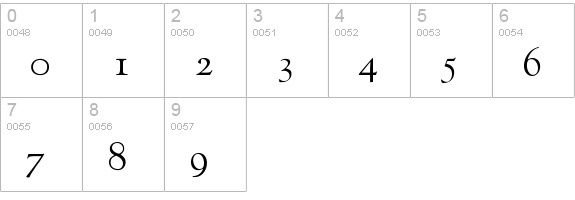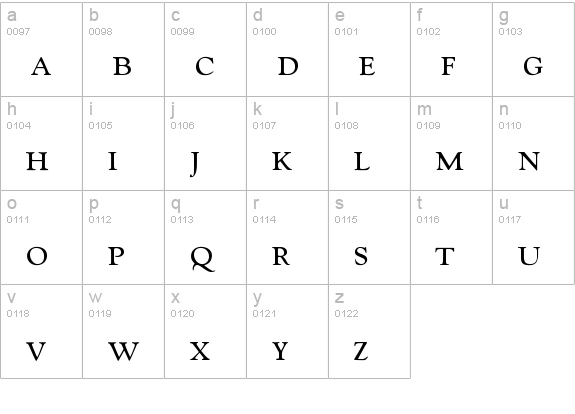
Goudy Oldstyle H-SC is a classic and elegant serif font that exudes a sense of timeless sophistication. Its high-contrast strokes and delicate serifs make it perfect for adding a touch of refinement to any project, whether it be for print or digital use. This font's old-world charm and graceful letterforms make it a popular choice for luxury branding, editorial design, and wedding invitations. What makes Goudy Oldstyle H-SC even more appealing is that it is available for free download at FontsMarket.com. This means that you can easily access this stunning font to elevate your designs without any cost involved. Don't miss out on the opportunity to enhance your projects with the beauty and grace of Goudy Oldstyle H-SC – download it today and add a touch of timeless elegance to your work.